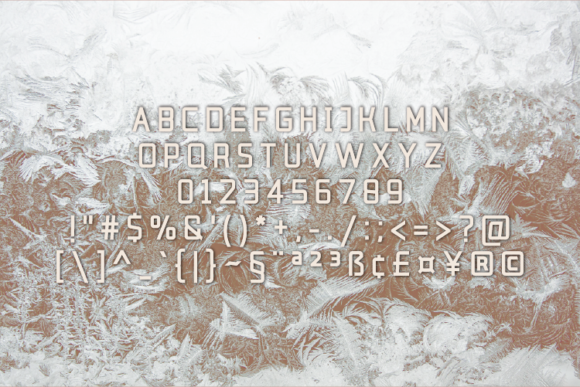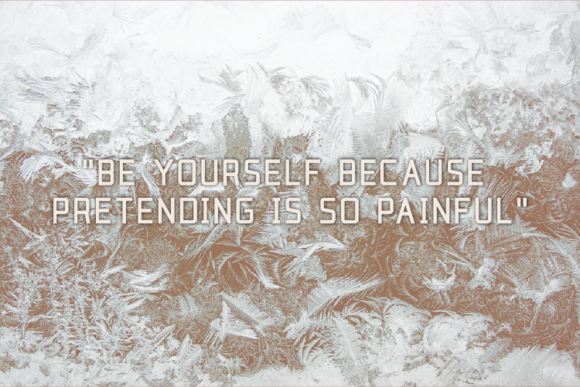
Introduction to Ryhan Font
Ryhan is a modern and clean sans serif font that is versatile and looks great in just about any context.
With smooth and clean lines, and just a touch of contrast, Ryhan works beautifully for logos, branding, web headings and much more .
Key Features of Ryhan Font
Why Choose Ryhan Font?
Ryhan Font offers exceptional quality and versatility, making it a valuable addition to your design toolkit. Whether you’re creating for personal projects or commercial use, Ryhan Font delivers professional results.